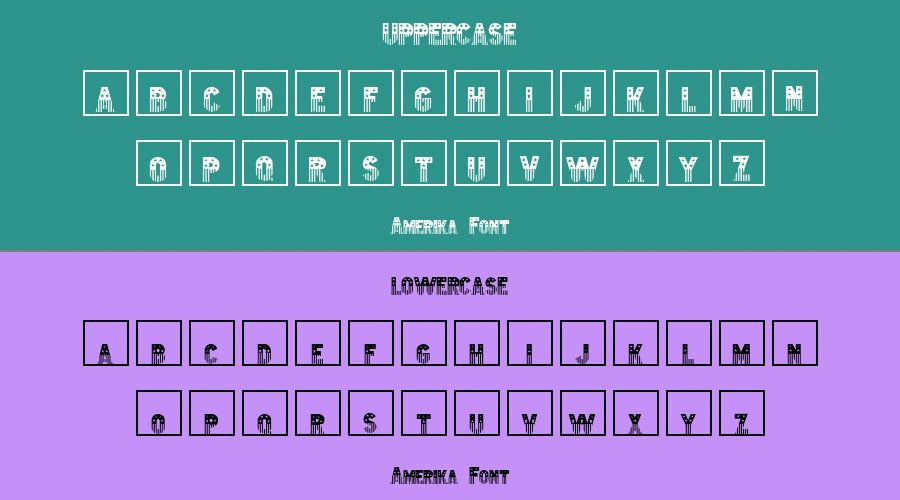
About Amerika Font
Amerika Font stands out for its distinctive combination of harmonious shapes and refinement. Ideal for government publications, it provides the flexibility and aesthetic excellence that professional projects demand. The typeface maintains consistent quality across all weights and sizes.
Key features include refined sharp edges and practical brand signatures, enhancing typographic expression. In brand statements applications, Amerika Font demonstrates exceptional versatility. The terminal style and scholarly tradition contribute to its distinctive character and professional appeal.